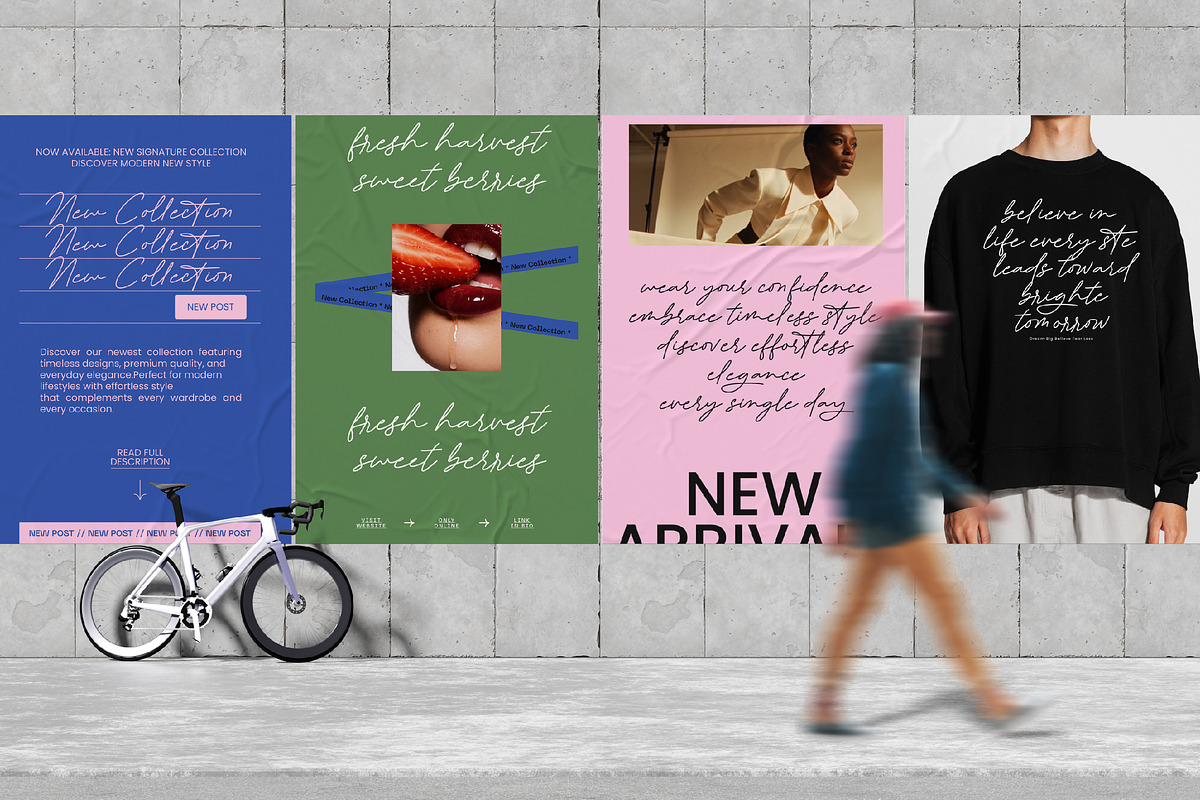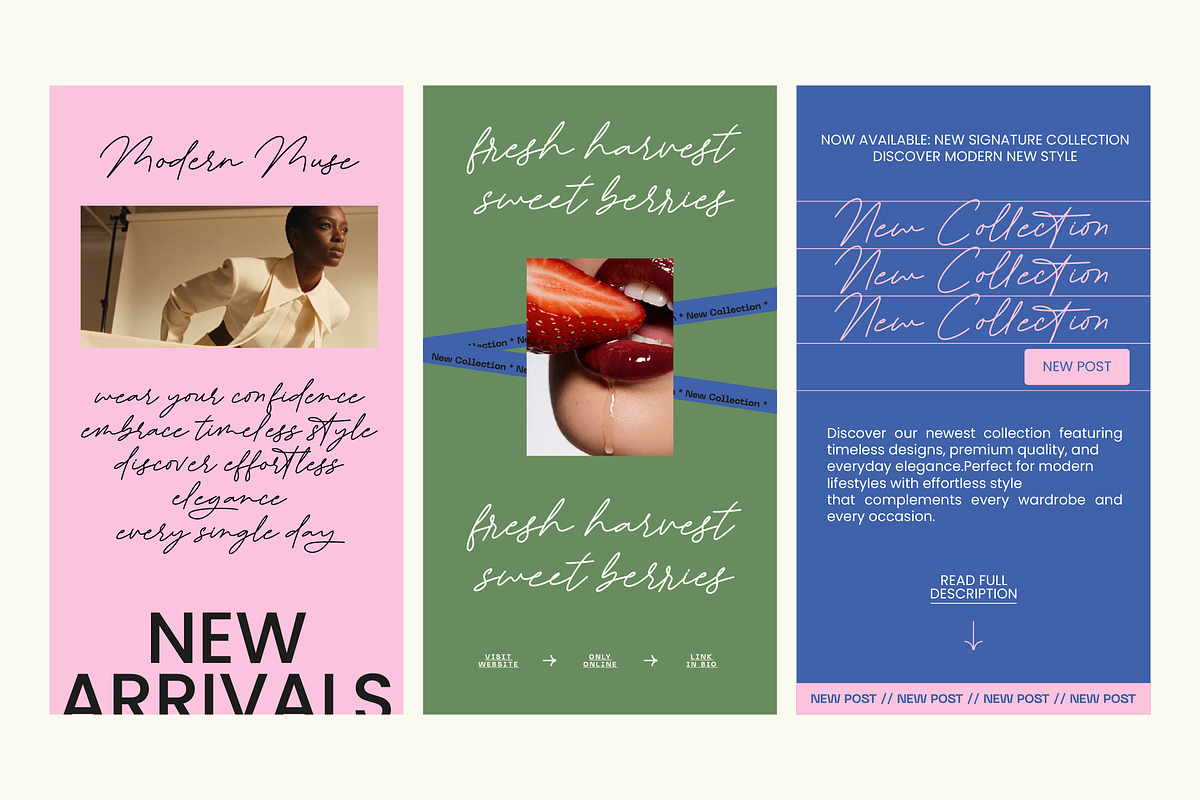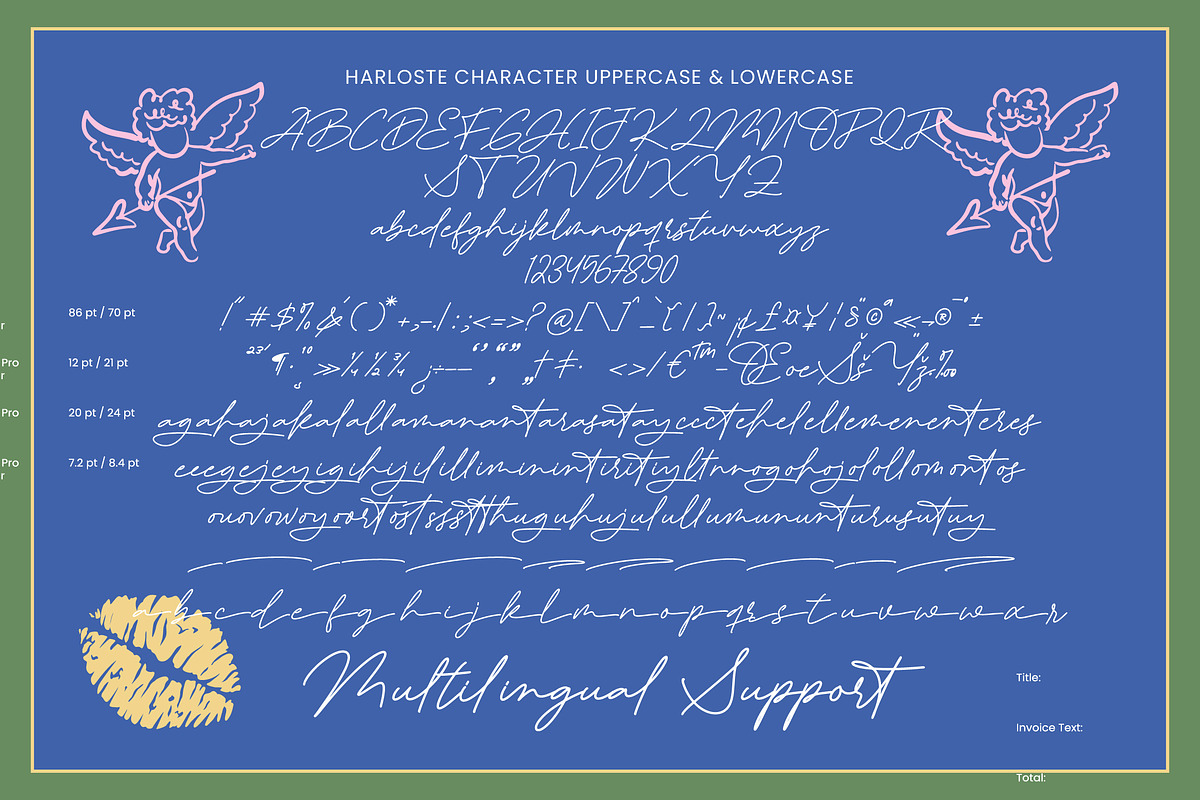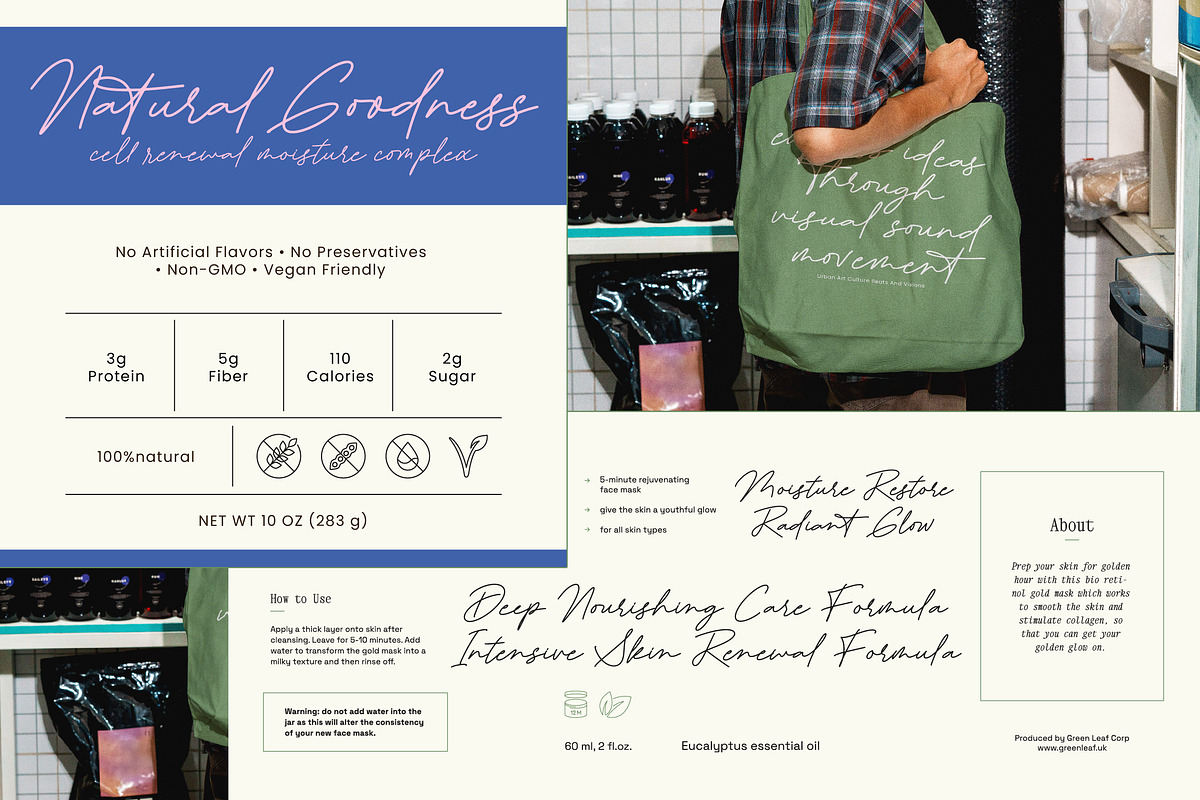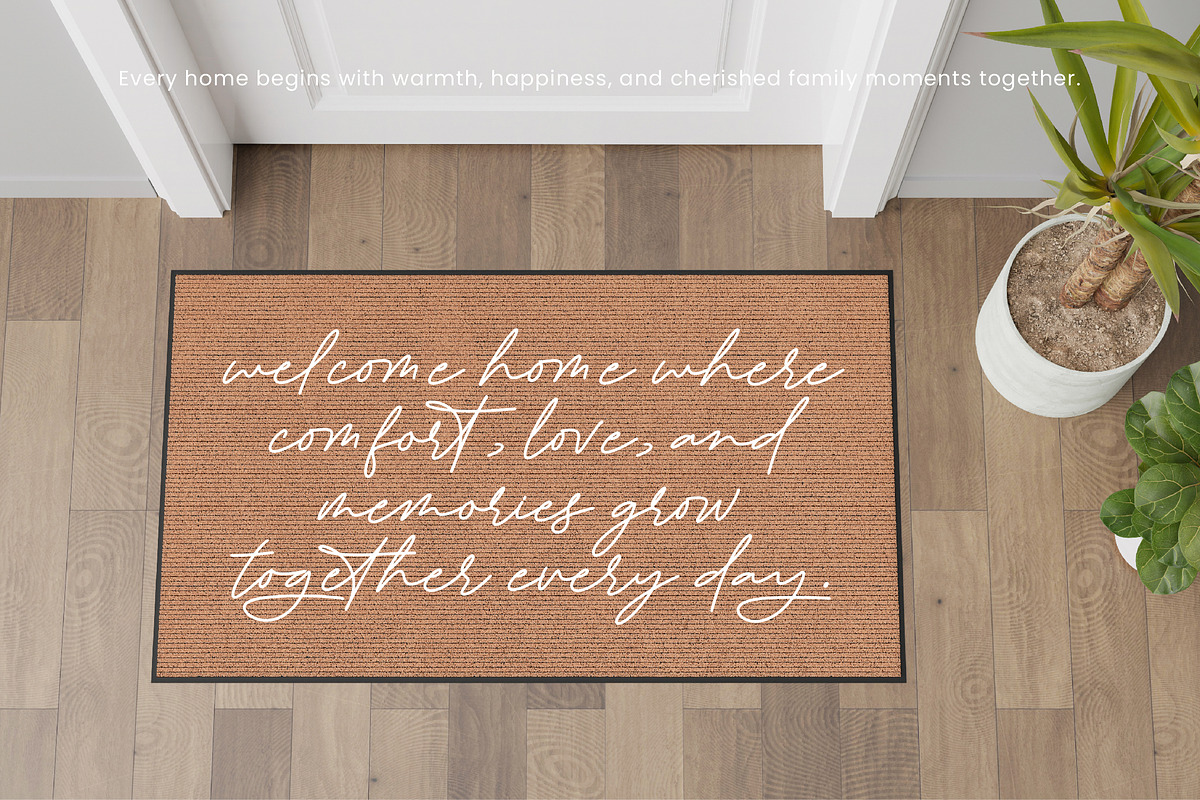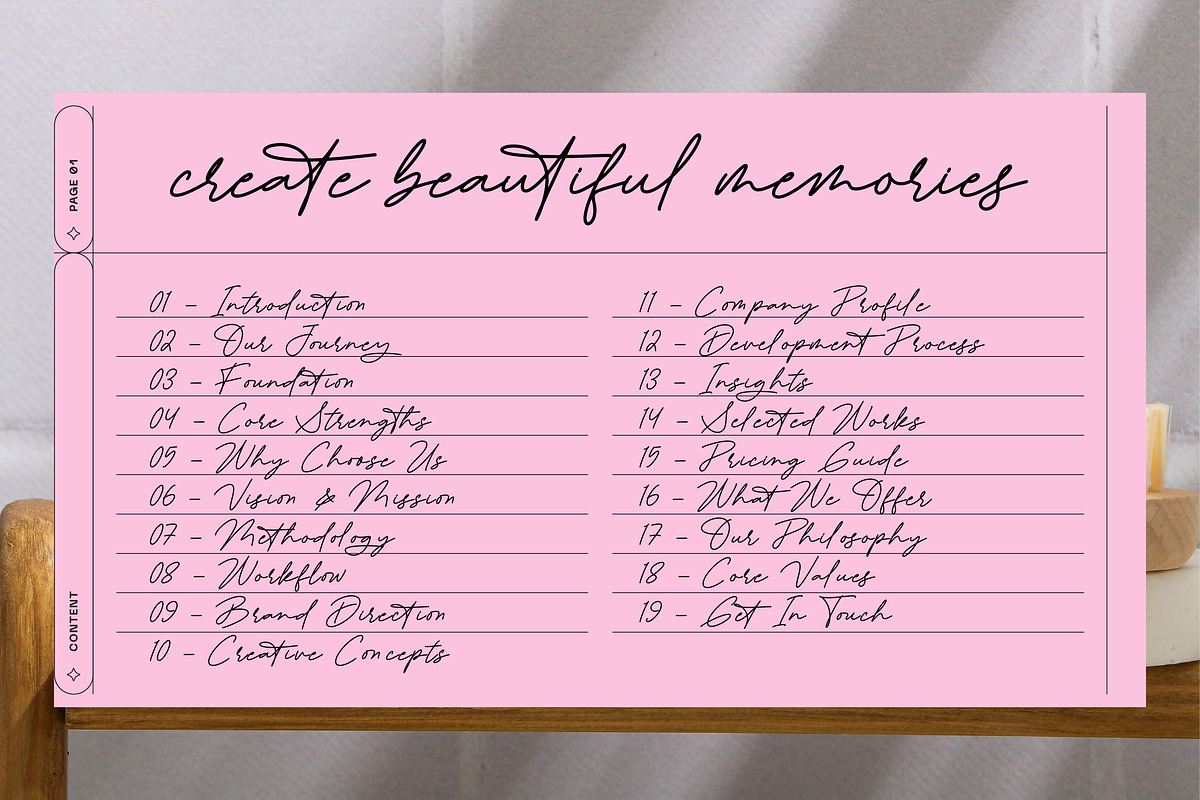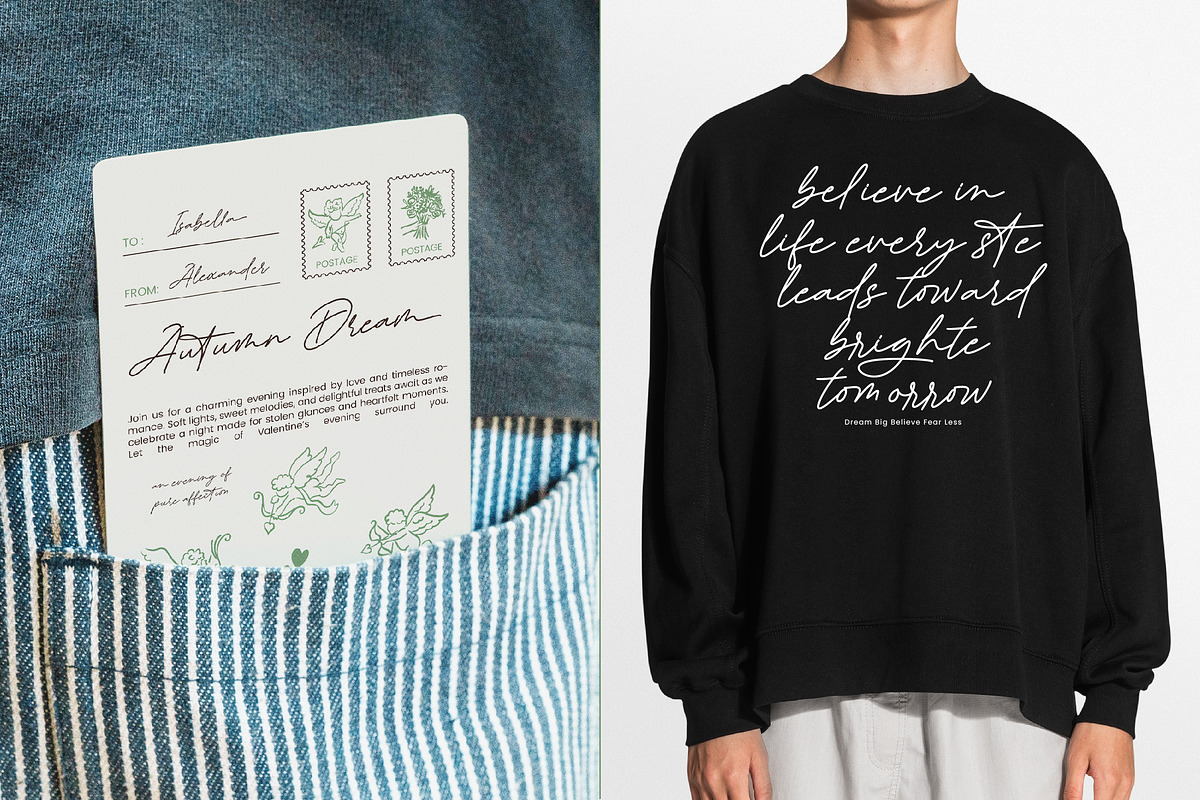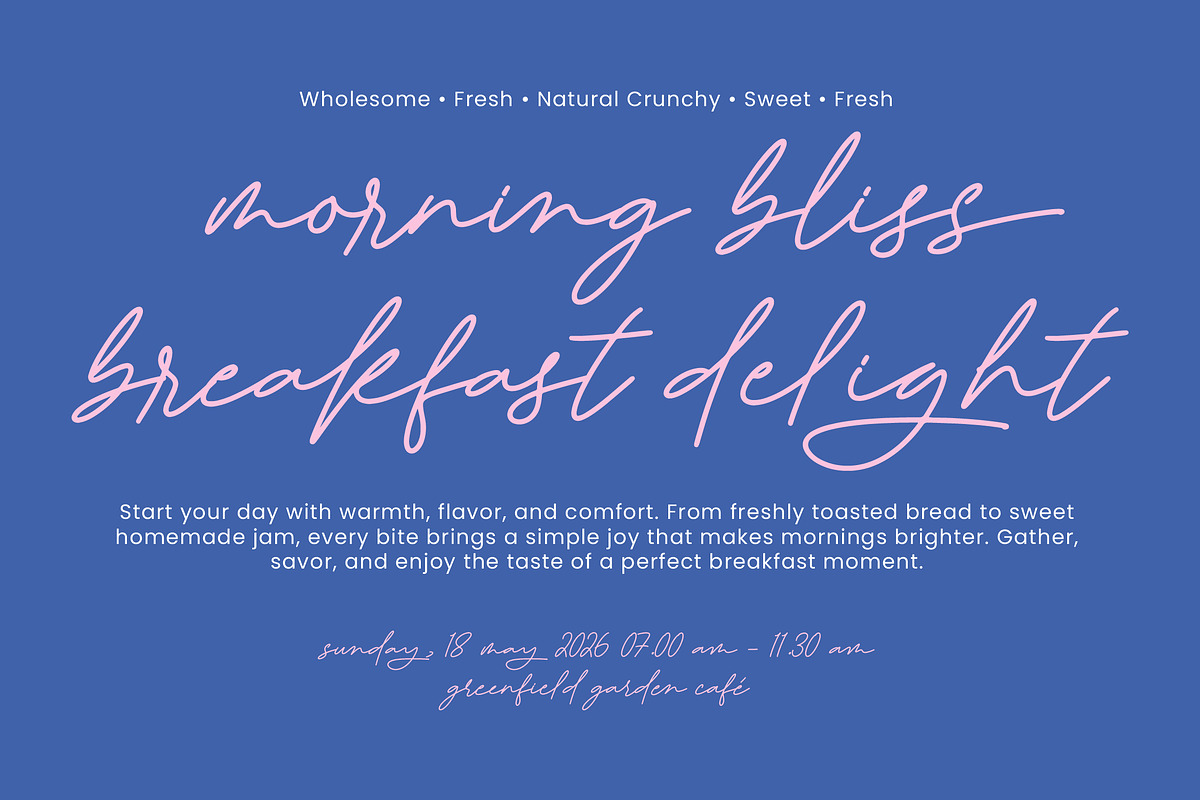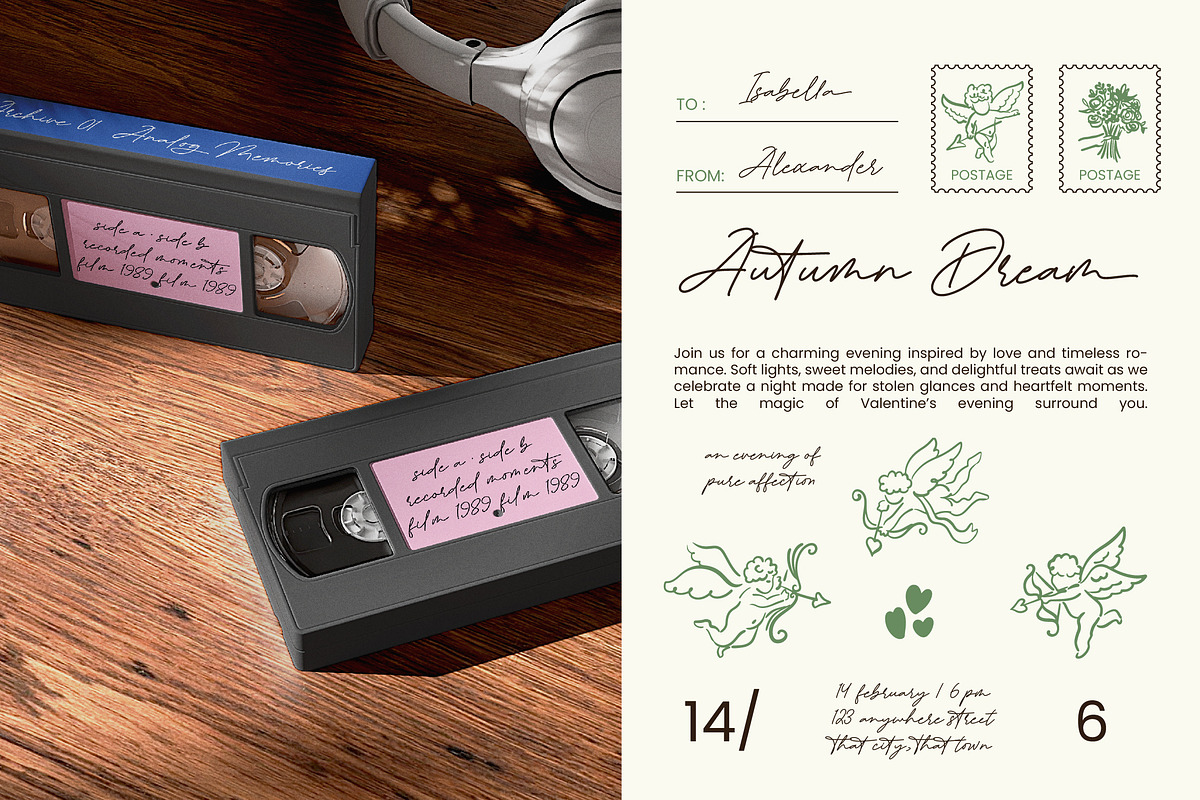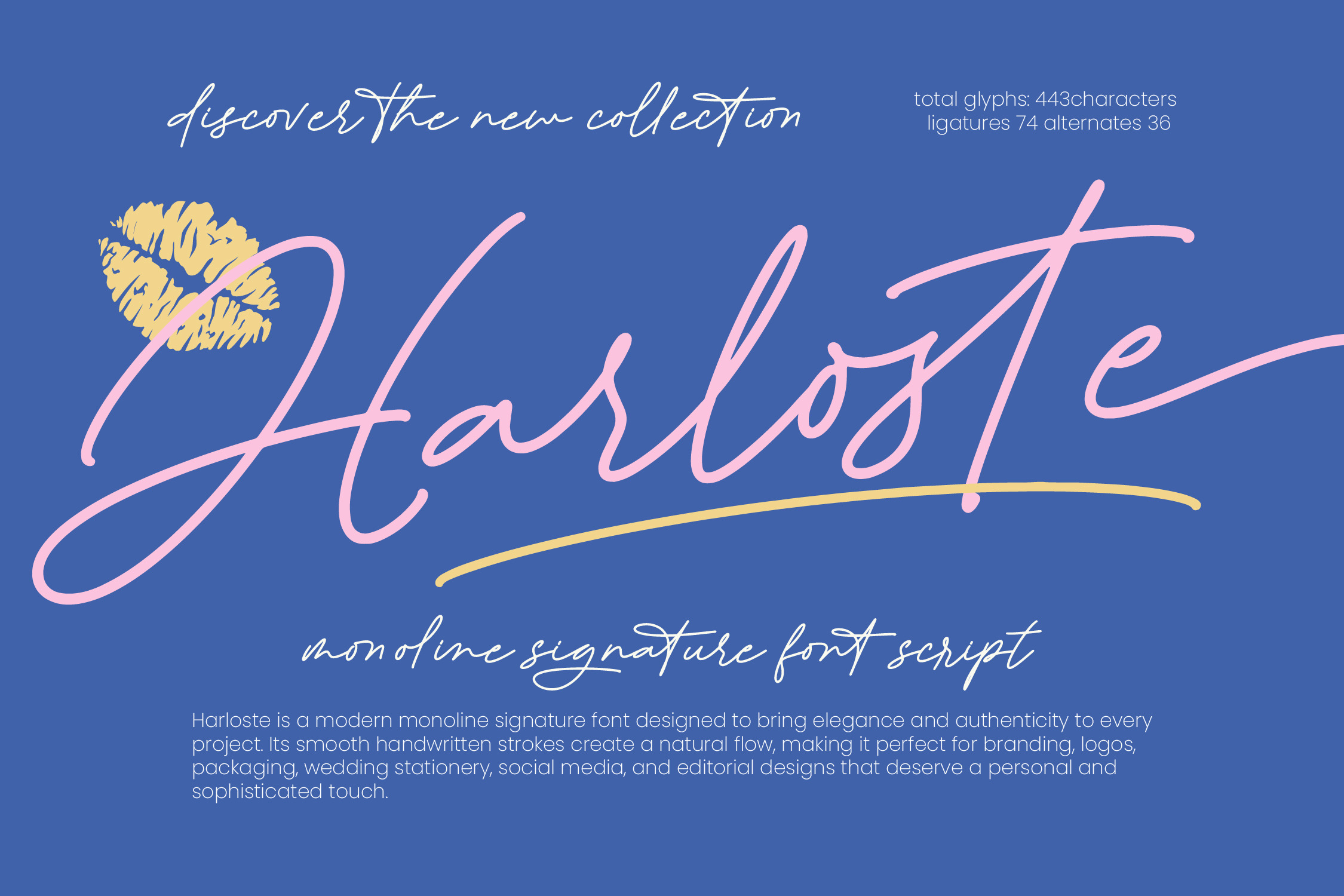
Harloste Monoline Signature Font
Harloste - Monoline Signature Font
Elevate your creative vision with a touch of modern sophistication and effortless charm. Harloste - Monoline Signature Font is a masterfully crafted monoline script that captures the essence of authentic handwriting with a refined aesthetic. Its smooth, consistent strokes and elegant flow create a natural rhythm, ensuring that every word feels personalized and high-end. This font is the ultimate solution for designers seeking a minimalist yet impactful signature style that resonates with contemporary trends.
Precision meets artistry in a typeface designed specifically for premium brand identities and high-profile visual storytelling. This typeface is perfect for luxury branding, bespoke logos, high-end packaging, and editorial design where a human touch is required to build trust and connection. Whether you are crafting elegant wedding stationery or curated social media content, Harloste - Monoline Signature Font provides a chic and polished finish that distinguishes your work from the competition.
Global reach and technical versatility are at the heart of this script’s professional design. With its extensive multilingual support, Harloste - Monoline Signature Font adapts seamlessly across global markets, making it incredibly versatile for international projects. Featuring over 440 glyphs, including 74 unique ligatures and 36 stylistic alternates, it offers unmatched flexibility for creators who need their typography to be as functional as it is beautiful.
Transform your digital and print projects into timeless masterpieces that exude confidence and graceful elegance. By integrating Harloste - Monoline Signature Font into your creative workflow, you gain access to a versatile asset that balances modernity with tradition. This authentic signature font is more than just a typeface; it is a powerful branding tool designed to leave a lasting, sophisticated impression on any audience.